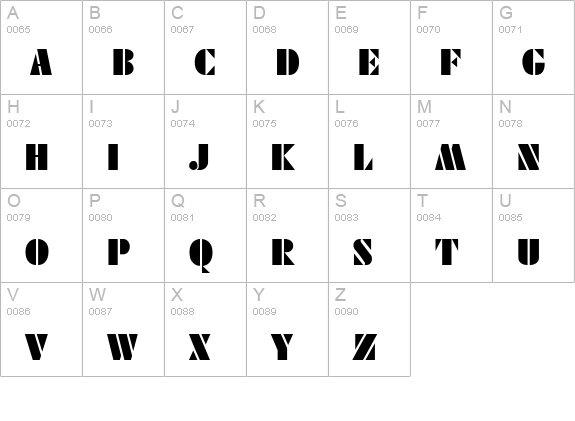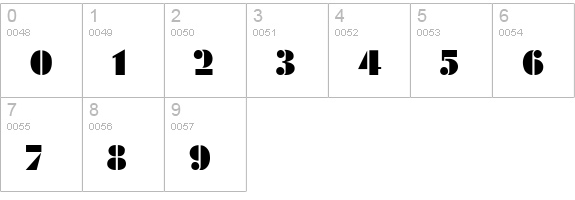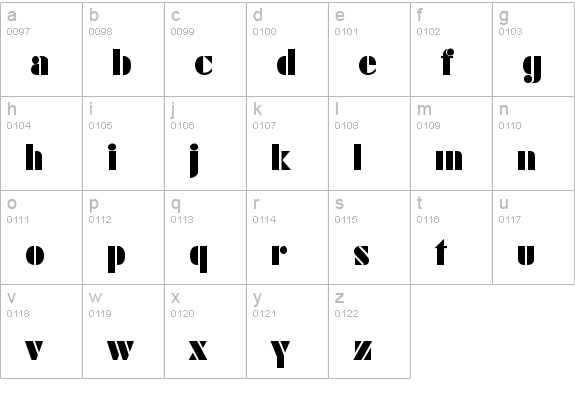
Kudos Poster SSi Poster Font Details
Introducing the captivating Kudos Poster SSi Poster font, a bold and attention-grabbing typeface that is sure to make a statement in any design project. With its strong and impactful letterforms, Kudos Poster SSi Poster exudes confidence and style, perfect for posters, headlines, and branding materials. The best part? This striking font is available for free download at FontsMarket.com, allowing you to add a touch of flair to your designs without breaking the bank. Embrace the power of Kudos Poster SSi Poster and elevate your projects with its unique and eye-catching aesthetic. Download it now and let your creativity shine!